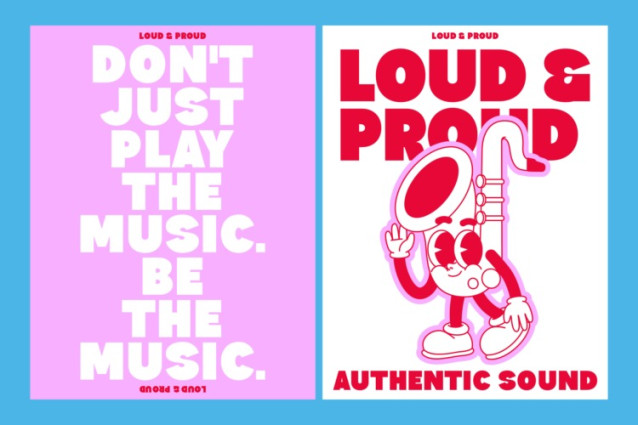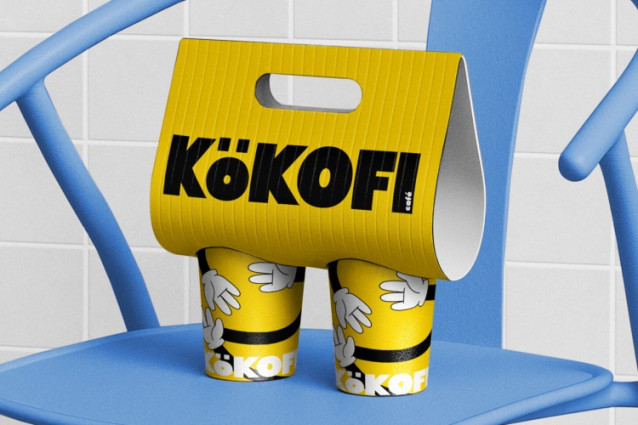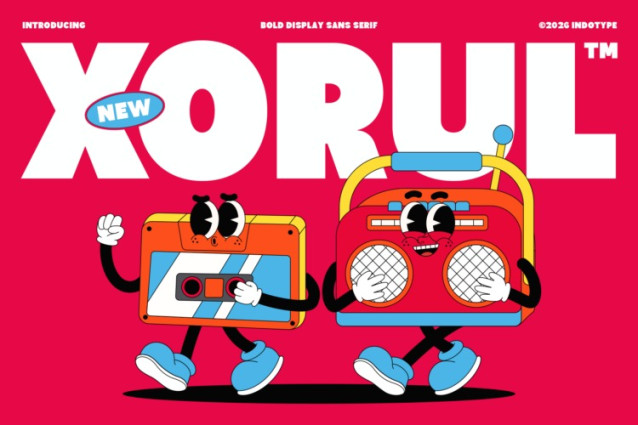
IT Xorul Font
IT Xorul Font is an uncompromising, ultra-bold display sans-serif that makes a definitive statement through sheer presence and geometric precision. Its commanding weight, tight letter spacing, and monolithic letterforms are engineered for maximum impact, creating a visual wall of text that demands attention. Stripped of any superfluous detail, Xorul focuses on pure graphic power, making it a tool for dominance in the visual landscape. This font is built for headlines that need to stop the scroll, logos that require instant recognition, and any branding that aims to project strength, modernity, and confidence. Perfect for music posters, tech branding with an edge, athletic campaigns, and editorial design that isn’t afraid to be bold, Xorul is the typographic equivalent of a headline in all caps—loud, clear, and unforgettable.